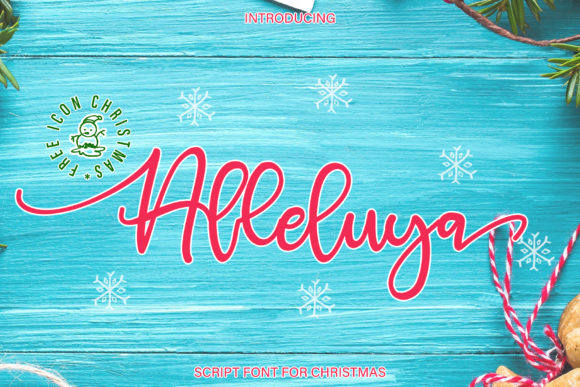
The Alleluya Font: A Stunning Addition to Your Design Arsenal
I’ll never forget the time I was working on a project for a client who wanted a bold, eye-catching font to match their brand’s personality. I scoured the internet for hours, but nothing seemed quite right. That was until I stumbled upon the Alleluya font family. This stunning collection brings together an incredible set of icons and a bold script that’s sure to elevate your designs.
- ✨ The unique blend of bold script and icons makes Alleluya a standout in any design.
- ✅ The font family is incredibly versatile, making it perfect for a wide range of projects.
- 💥 The OpenType features and glyphs offer endless possibilities for customization.
- 🎉 The font is perfect for designers, crafters, and creative hobbyists looking to add a touch of personality to their work.
While Alleluya is an amazing font family, there are a few things to keep in mind:
- 🤔 Some users may find the font a bit overwhelming due to its bold nature, so it’s essential to use it in moderation.
- ⚠️ The font’s unique features may not display properly in older software or browsers, so be sure to test it thoroughly.
The Designer Inspiration Behind Alleluya
According to its creators, Alleluya was inspired by a desire to create a font that would bring joy and celebration to designs. The font’s unique blend of bold script and icons is meant to evoke a sense of excitement and energy.
Q: What makes Alleluya so unique?
A: Alleluya’s unique blend of bold script and icons sets it apart from other fonts.
Q: Is Alleluya difficult to use?
A: While Alleluya has a lot of features and glyphs to explore, it’s relatively easy to use, even for beginners.